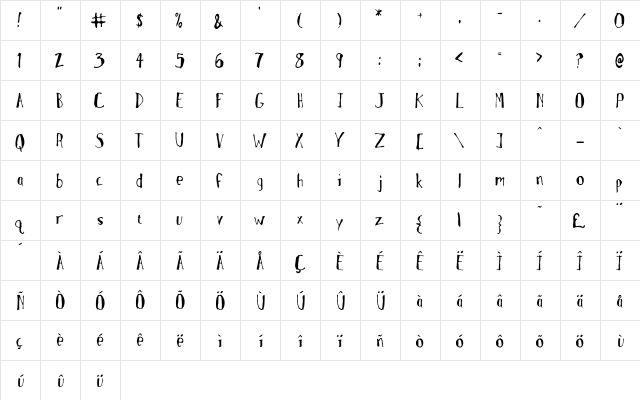
MotherGoose Regular
Design Context for MotherGoose Typeface
MotherGoose is a composed and adaptable typeface that performs quietly and consistently across a wide range of design contexts.